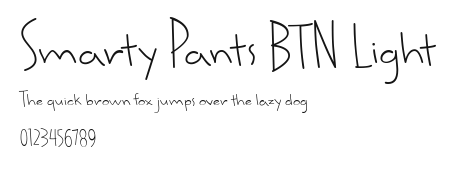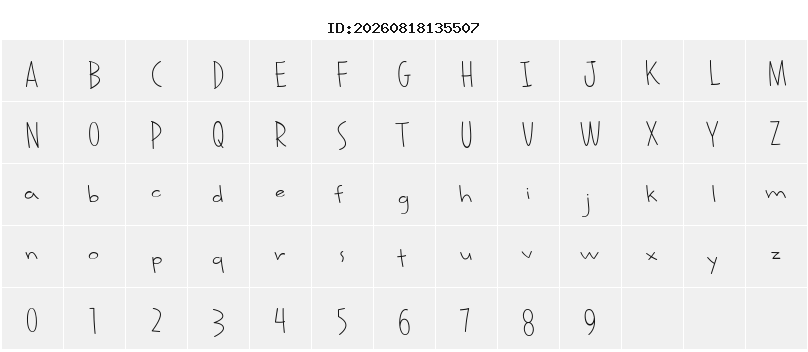
• Font Name: Smarty Pants BTN Light
• Full Font Name: Smarty Pants BTN Light
• Copyright: (C) 2003 Bitstream Inc. & Font Diner. All Rights Reserved. Designed by Stuart Sandler. http://www.fontdiner.com/ ROE?
About Smarty Pants BTN Light.ttf
Smarty Pants BTN Light.ttf is a modern, elegant sans-serif font designed for ultimate readability and visual harmony. Perfect for branding, headlines, web design, and print materials.